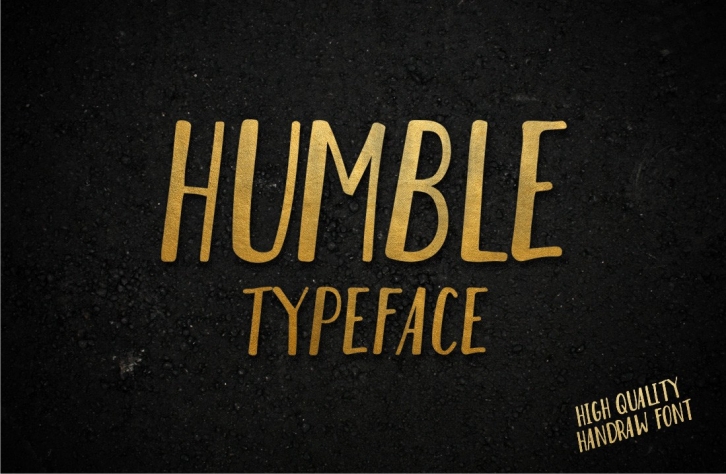
Humble is a trendy and unique font with an authentic style. It was designed by Goodware x Tastype and it's a great choice for creative people who need such a font. It was released on October 28, 2017 and the file size is 4.40 MB. Humble will add an organic vibe to any design idea!